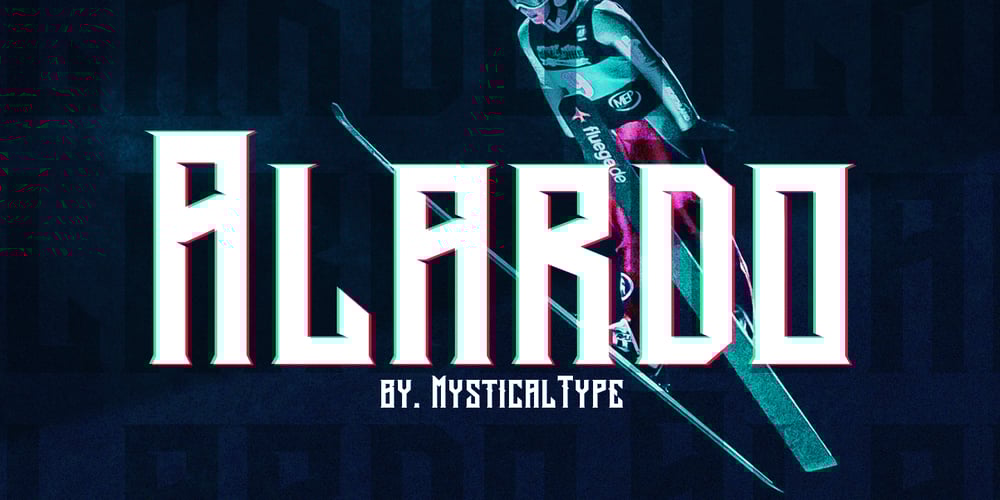
Alardo Font Family was designed by Candi Erwanto and published by MysticalType. Alardo contains 2 styles and family package options. Alardo is intended for branding that is synonymous with sports. The initial character was built in bold with a bold personality, but thin strokes and flowing italics provide a flexible and unique family series. Glyphs are made in low contrast strokes, short ascenders and descenders, and low caps.